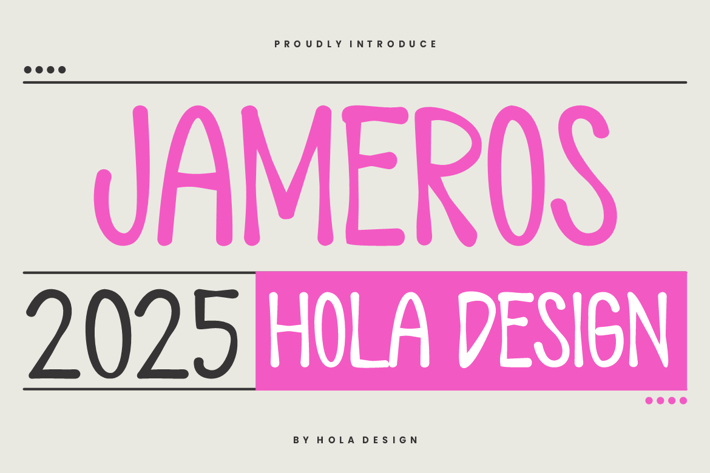
Jameros - Splash & Paint Font
Jameros - Splash & Paint Font is unique . Ready to use for your design like labeling, movie sceen, poster, movie title, gigs, album covers, logos, and much more.